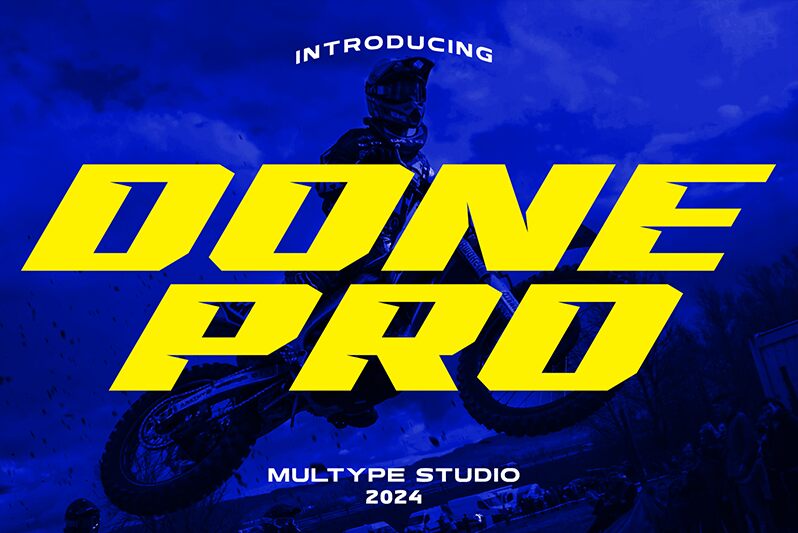
Racing Done Pro
Racing Done Pro font by Multype Studio is a futuristic display font with an expanded and bold structure. Its geometric shapes and strong presence give it a modern appeal and assertive style. The font has an overall retro aesthetic which further enhances its visual beauty and sets it apart from other typefaces.
This free display font can be used in branding, packaging, business cards, flyers, posters, website titles, video effects such as intros or outros for YouTube channels or event videos. It will fit industrial designs used for construction projects such as project reports, banners etc.